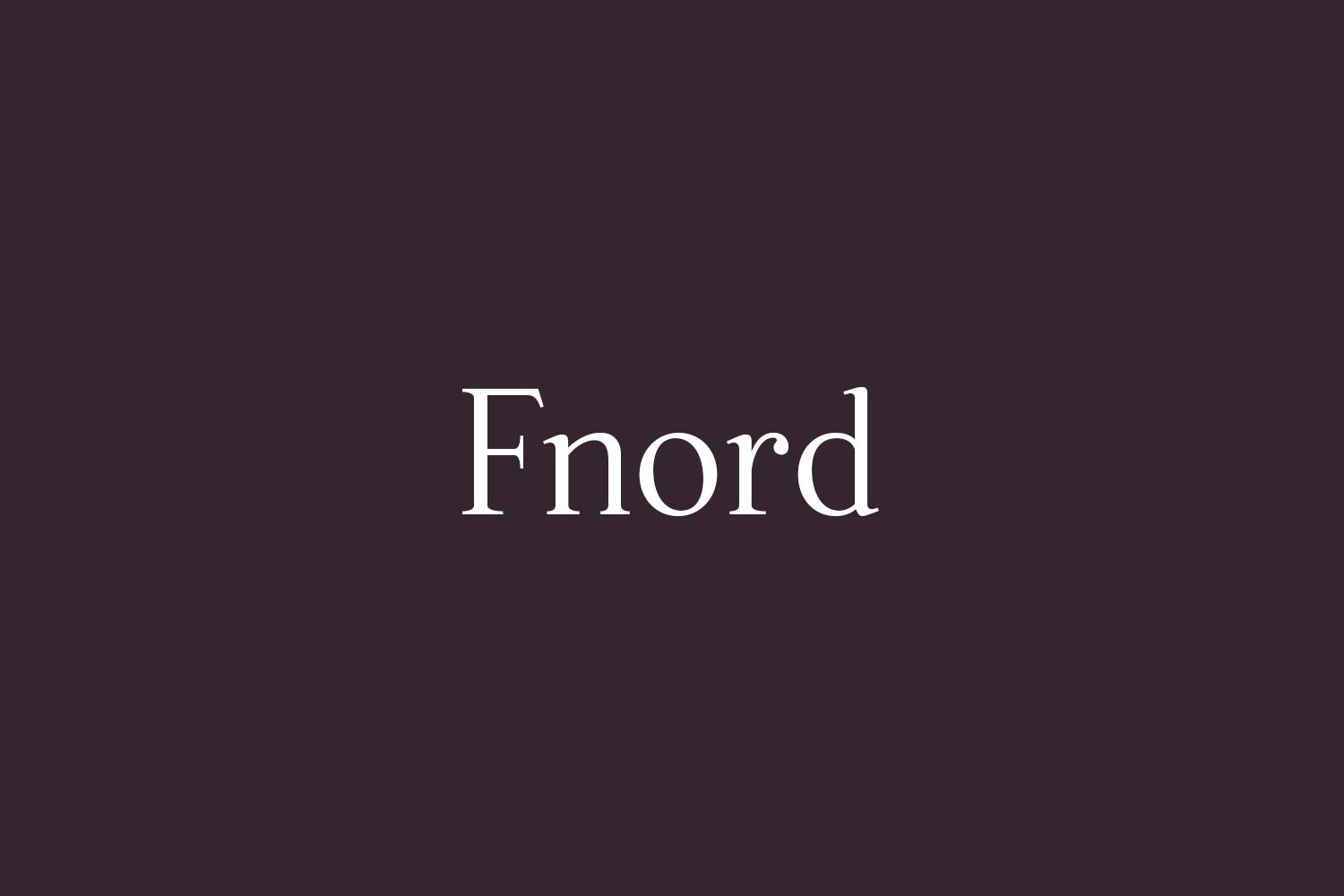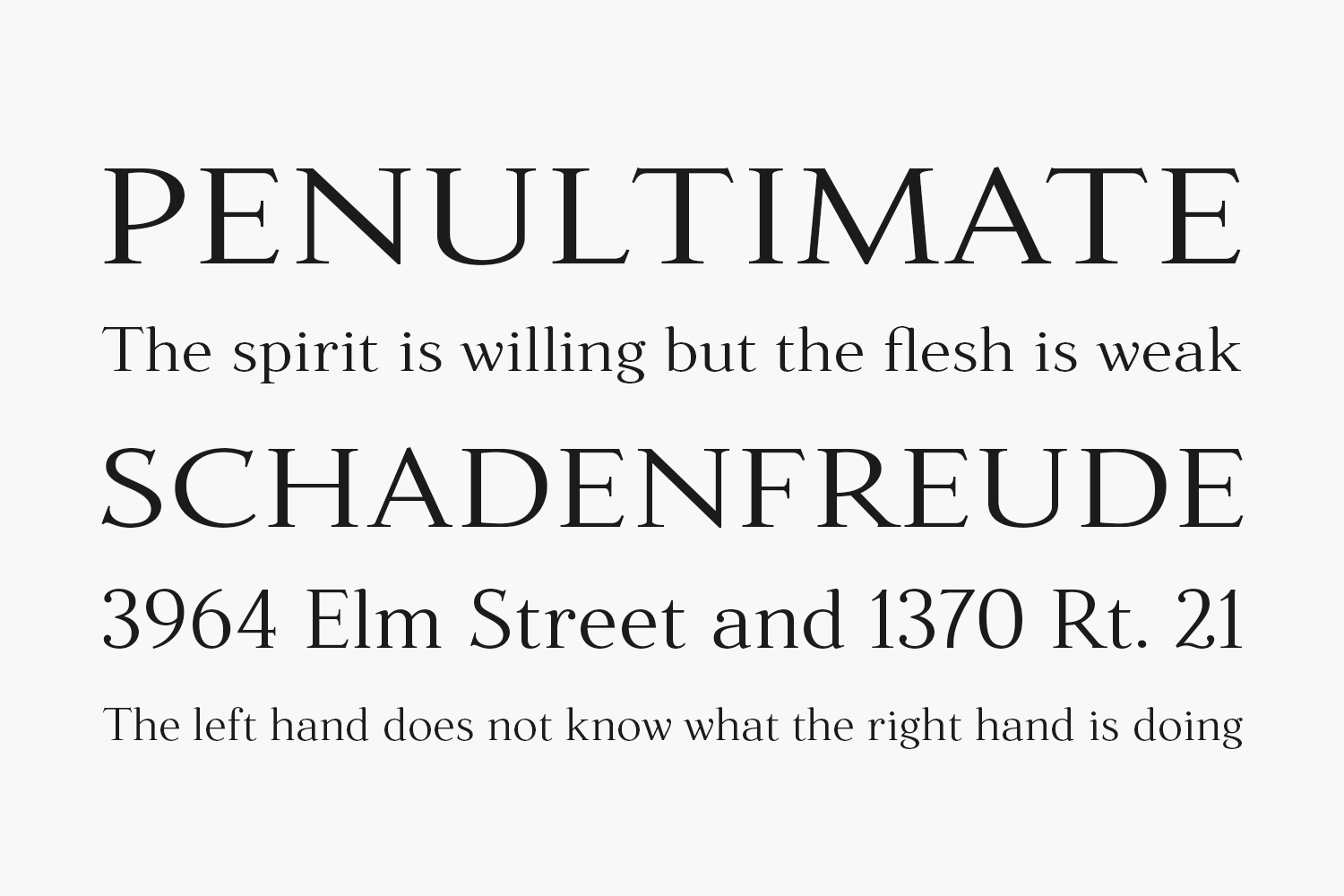
Fnord Free Font Family is a contemporary humanist serif typeface. It is ideally suited for display purposes, titling, headline copy and branding.
Designed by Paulo Goode